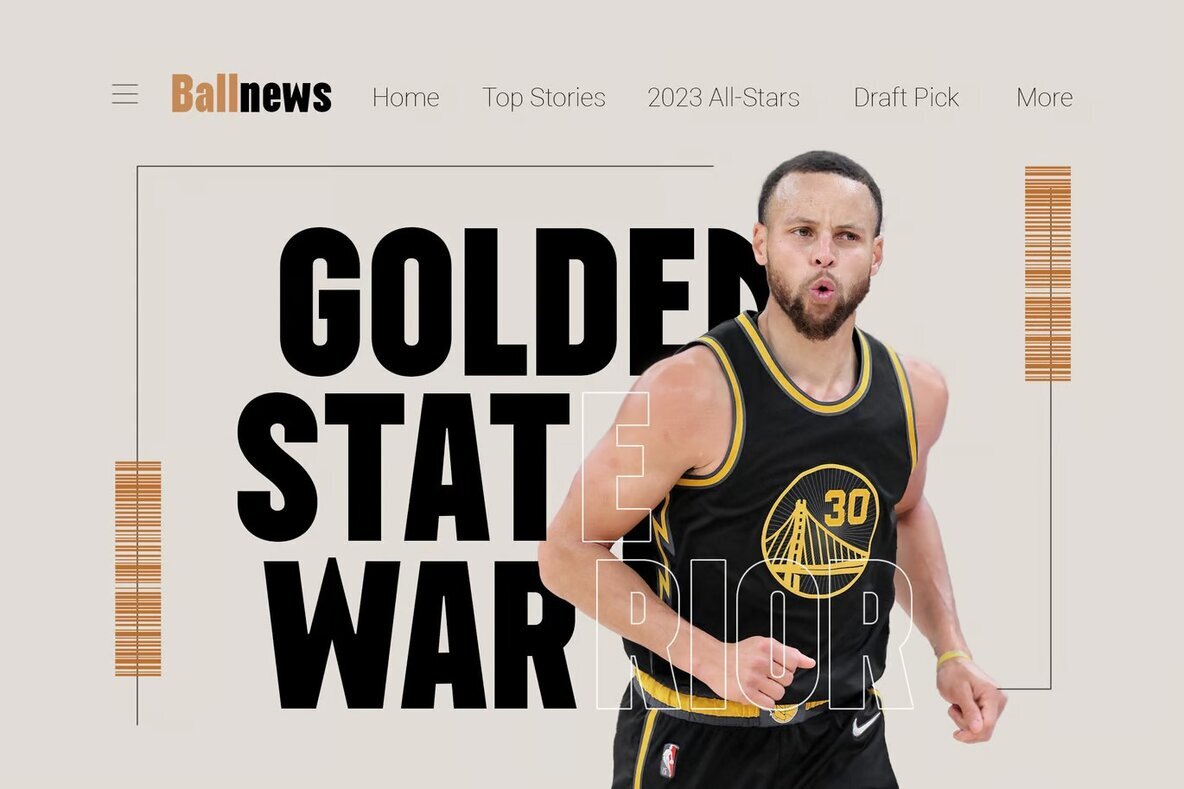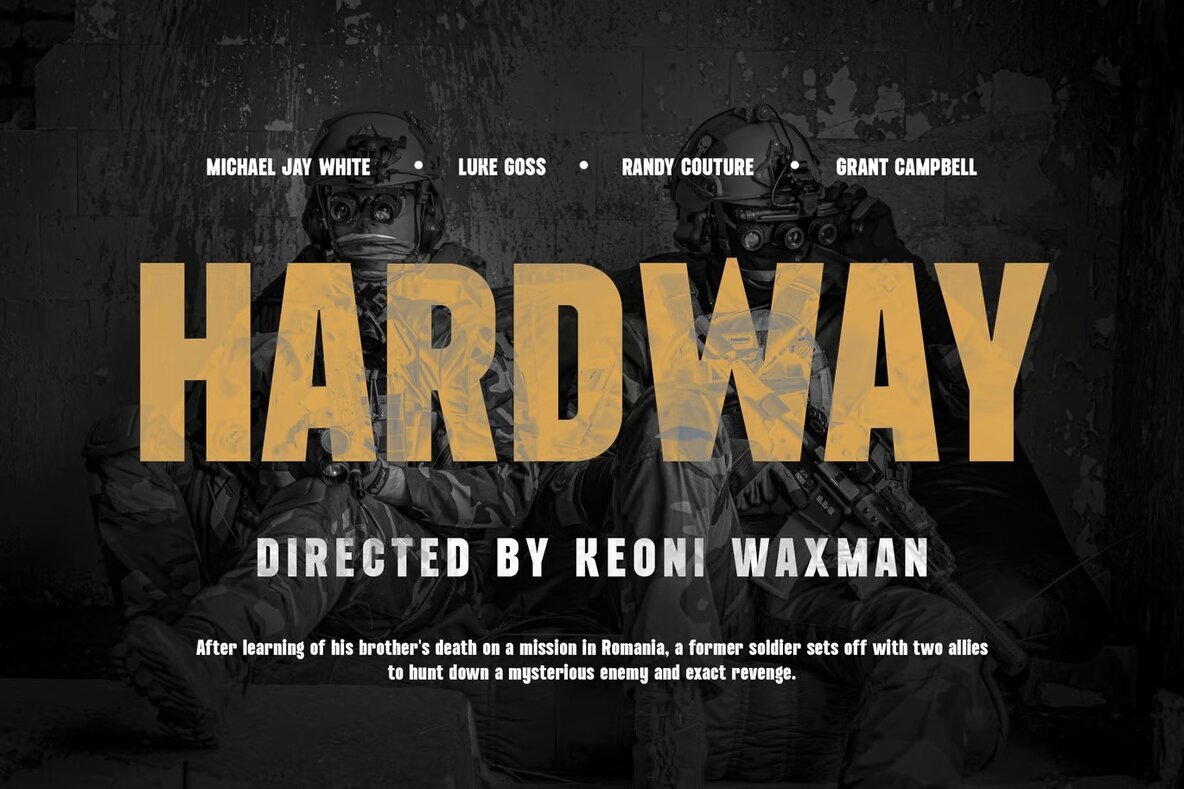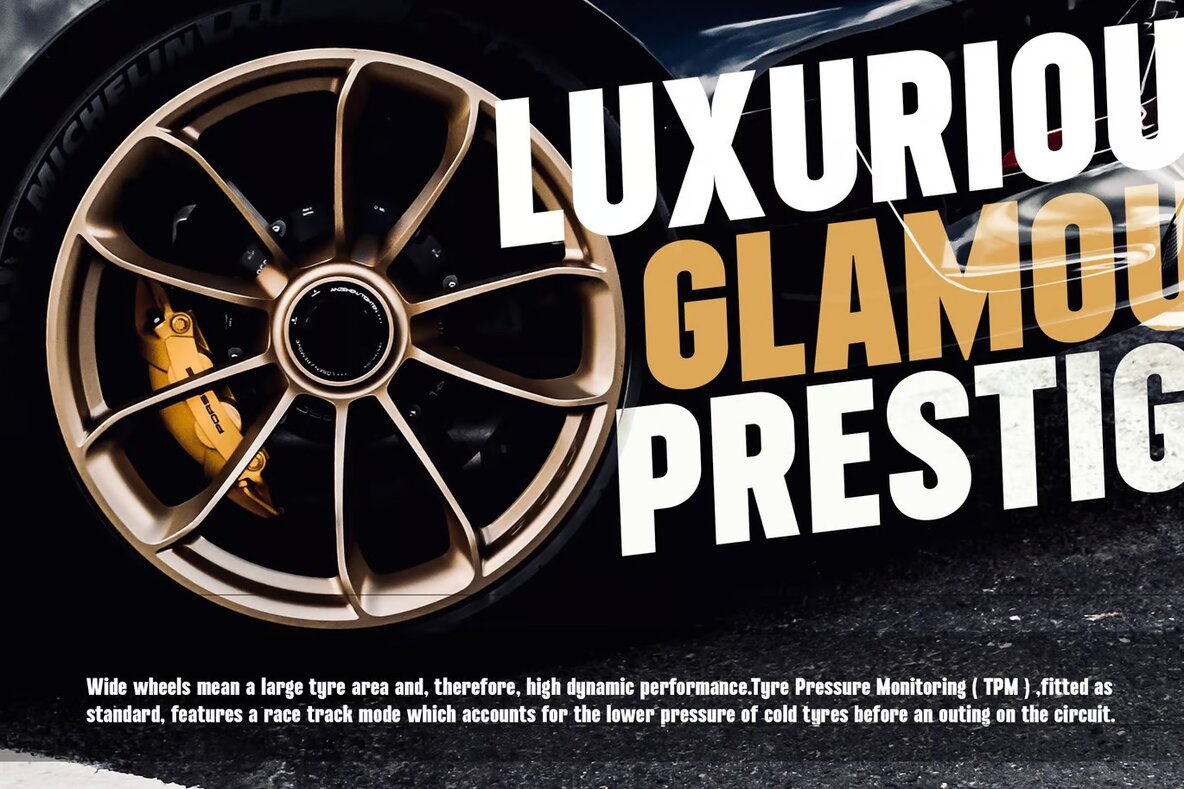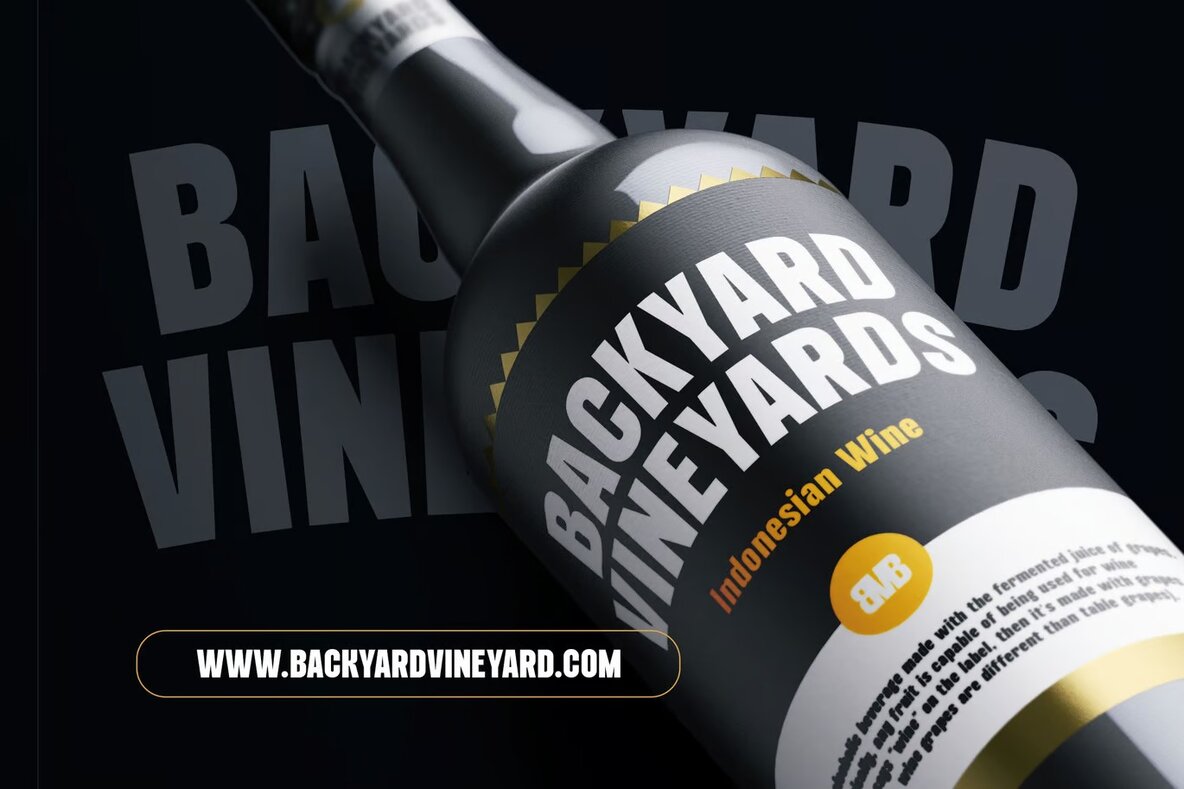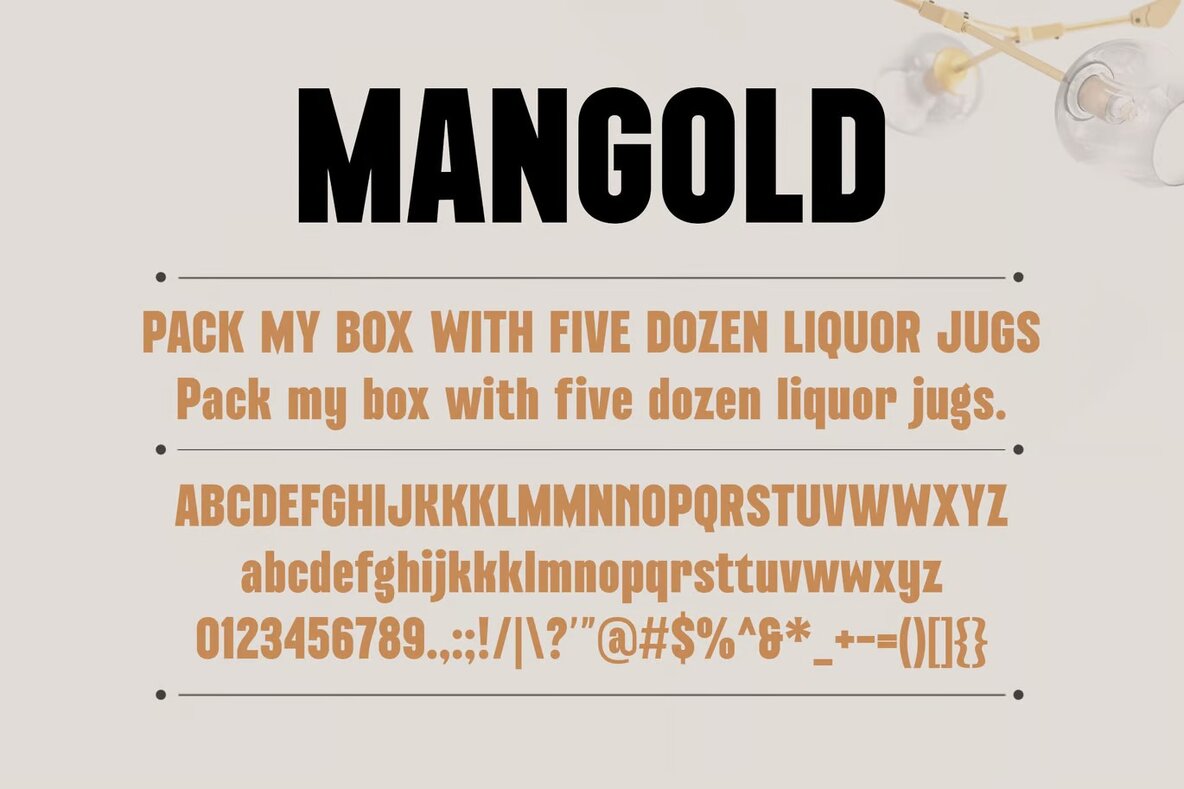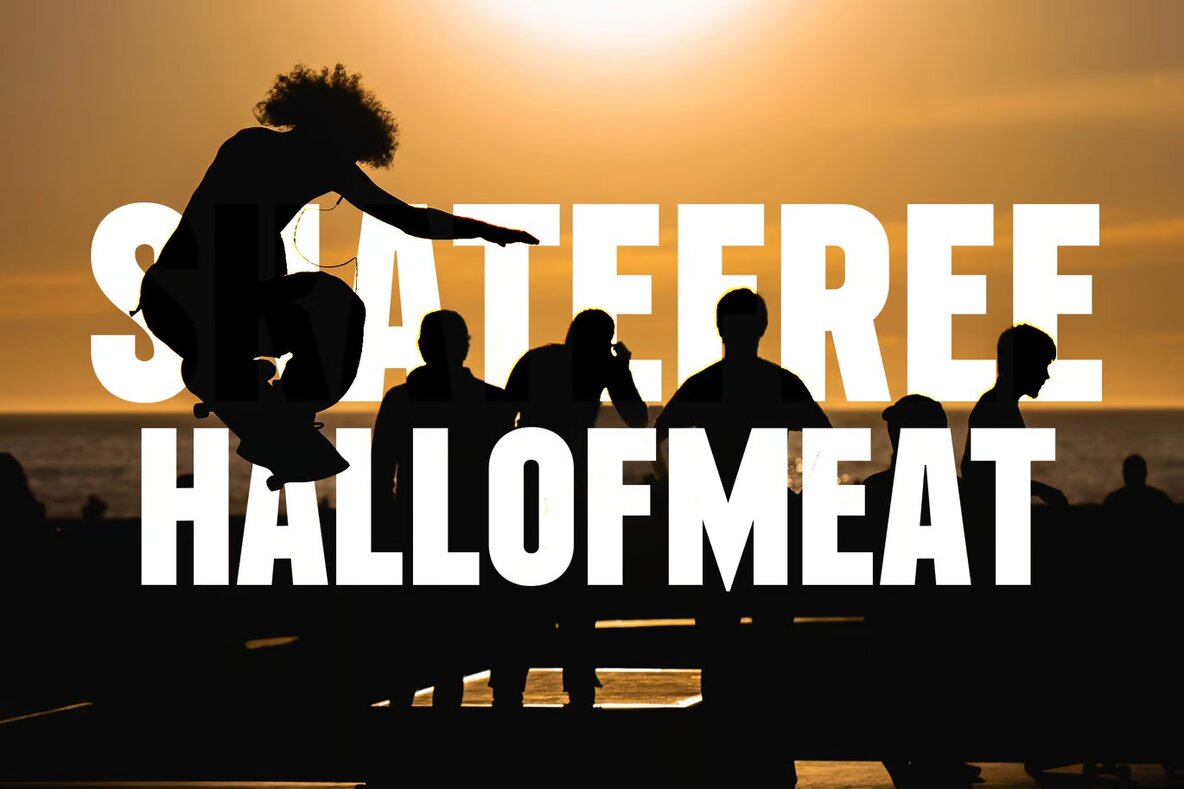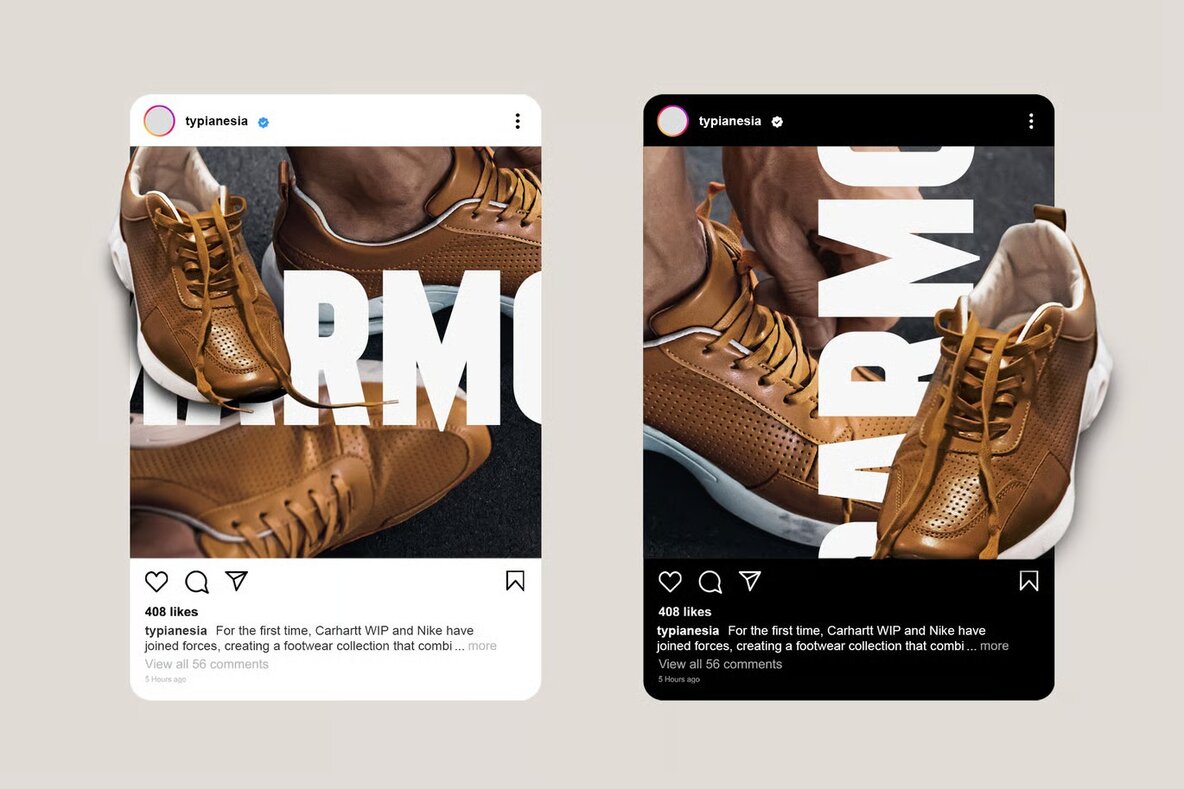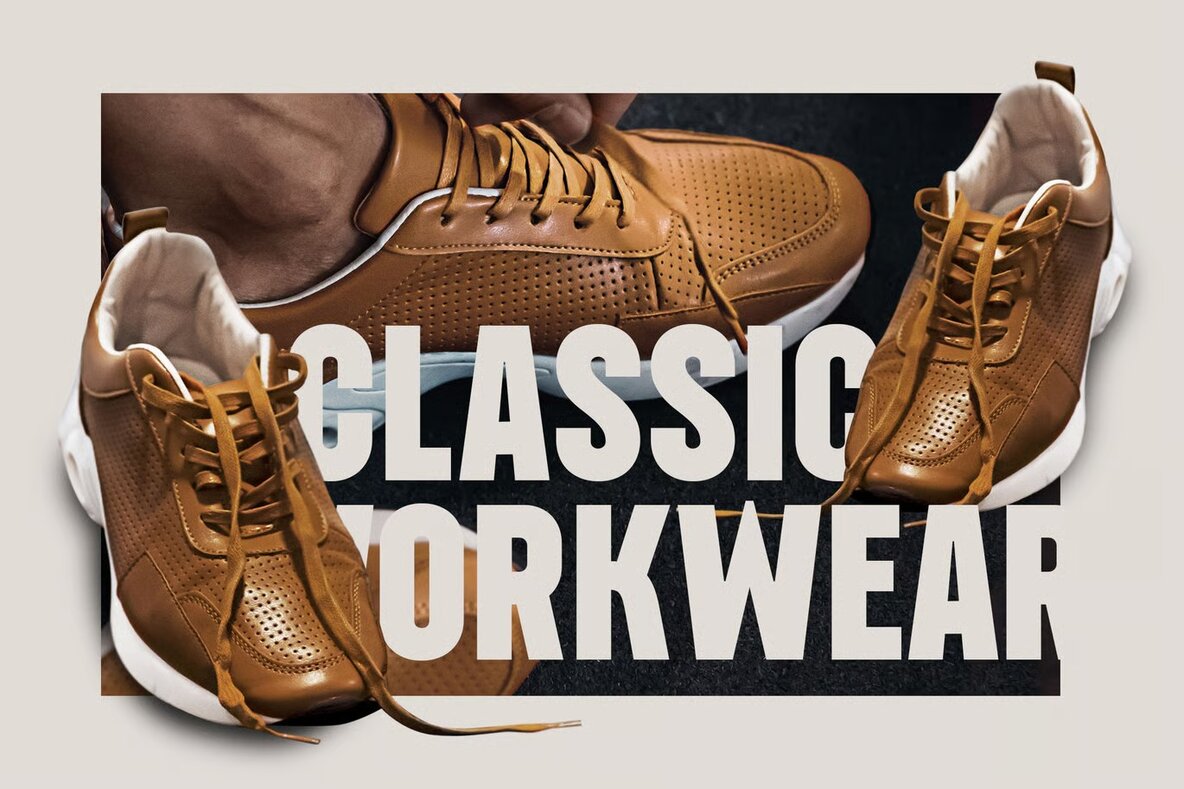
Mangold Font
Mangold Regular
Mangold Condensed Sans is a bold and dynamic display font crafted for sports and active brands. Its condensed design ensures that your titles and headlines stand out with impact. This font excels in creating eye-catching visuals that captivate attention, making it suitable for a range of design projects such as logos, posters, and advertisements.
Ideal for promoting sports events, fitness brands, or athletic products, Mangold Condensed Sans offers functionality and versatility. Its clean, striking appearance ensures your message is delivered effectively, no matter the medium. Enhance your design projects with the modern and energetic appeal of Mangold Condensed Sans, perfect for any active brand.